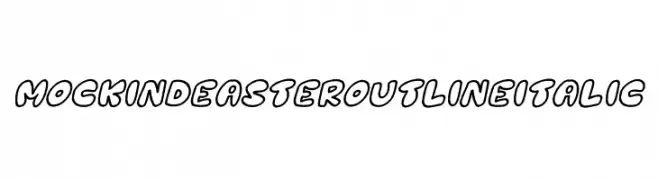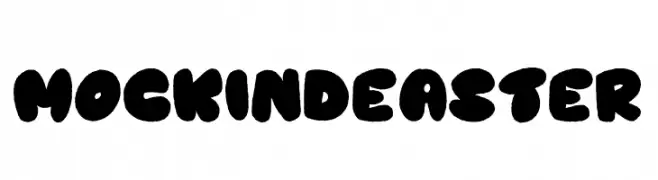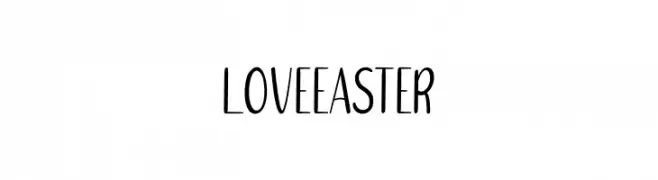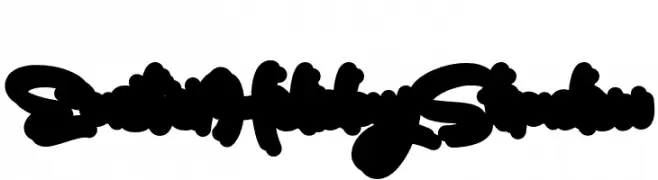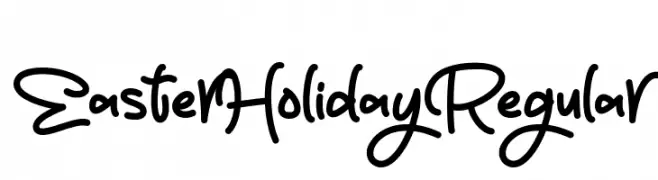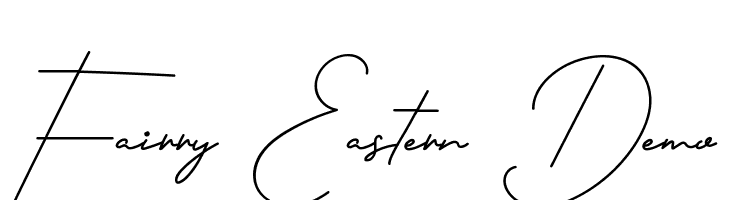
A playful, nature-inspired font with floral accents and a bold, cartoonish style.
A bold, playful, and slightly italicized font with rounded edges.
A playful, bold outline font with a bubble-like, whimsical style.
A playful, outlined, and slightly italic font with a bold and friendly appearance.
A playful, bold font with rounded, bubble-like characters.
A delicate, elegant script font with a handwritten style.
A playful, handwritten-style font with smooth, rounded strokes.
Bold, playful font with a shadow effect and hand-drawn style.
A playful, whimsical script font with interconnected letters and a handwritten feel.
Playful handwritten font with tall, narrow letters.